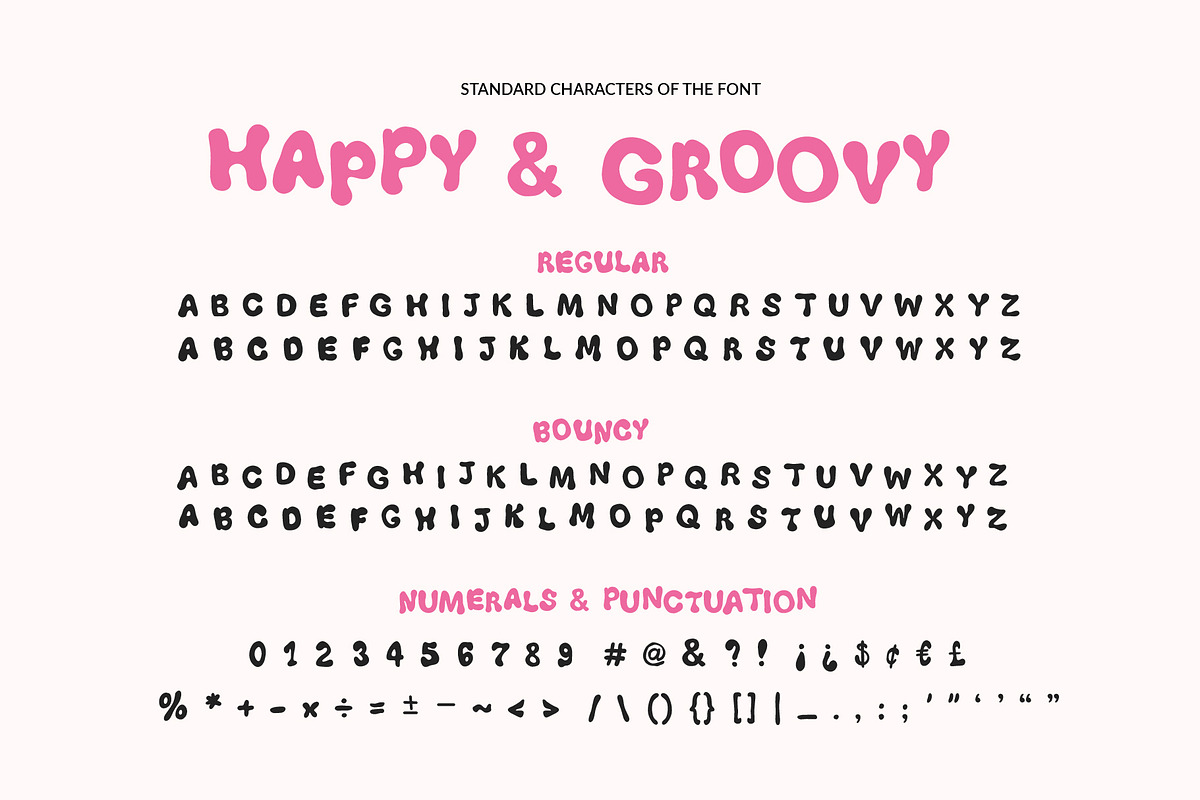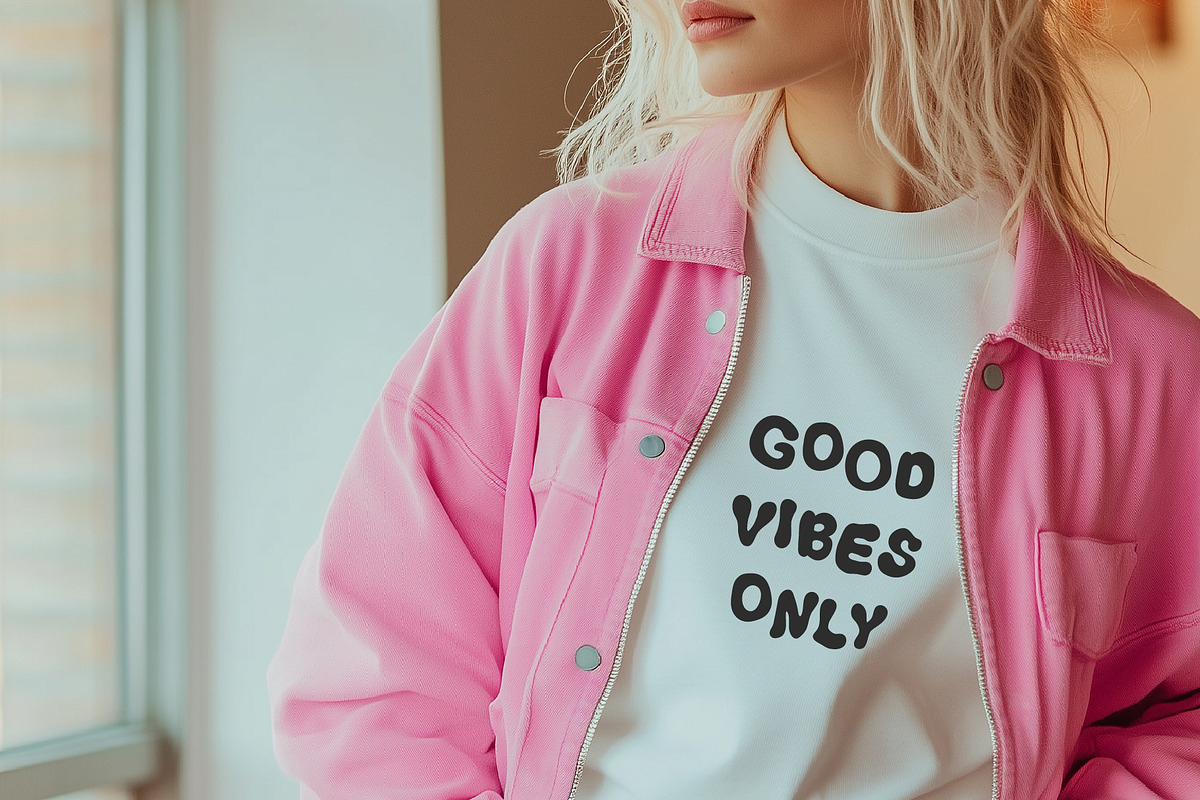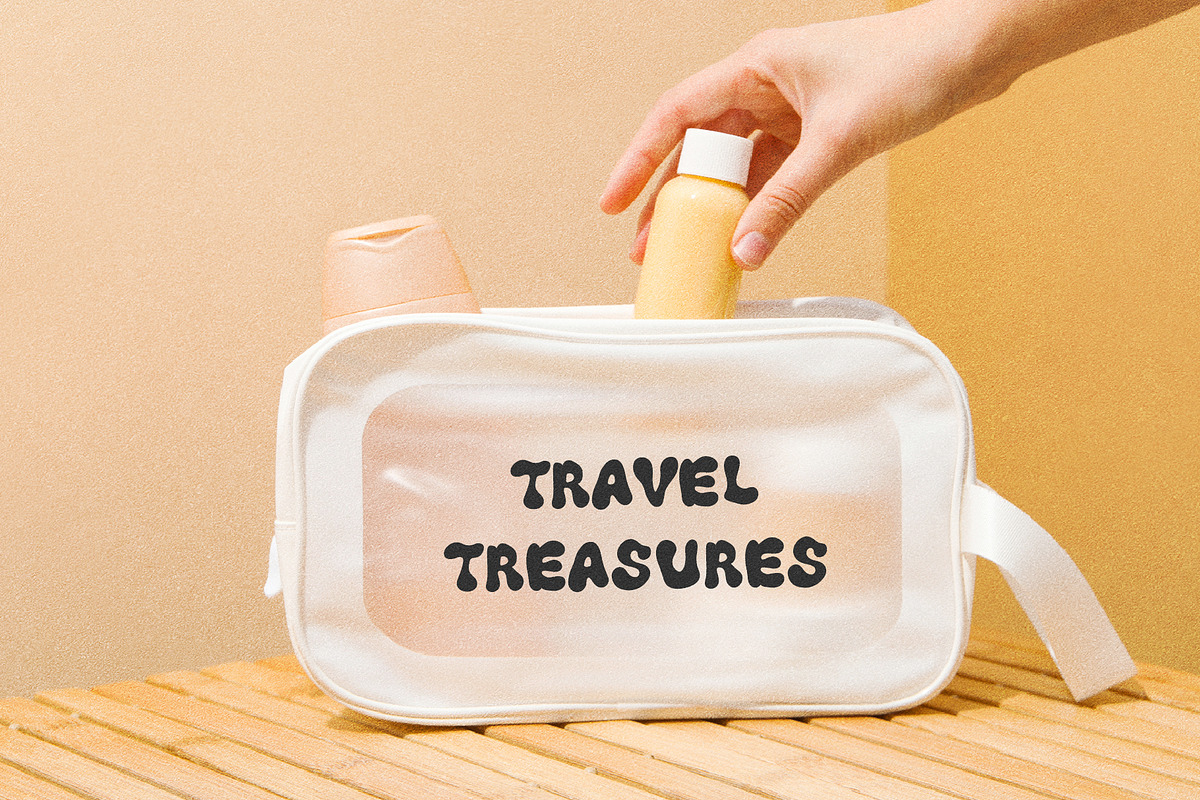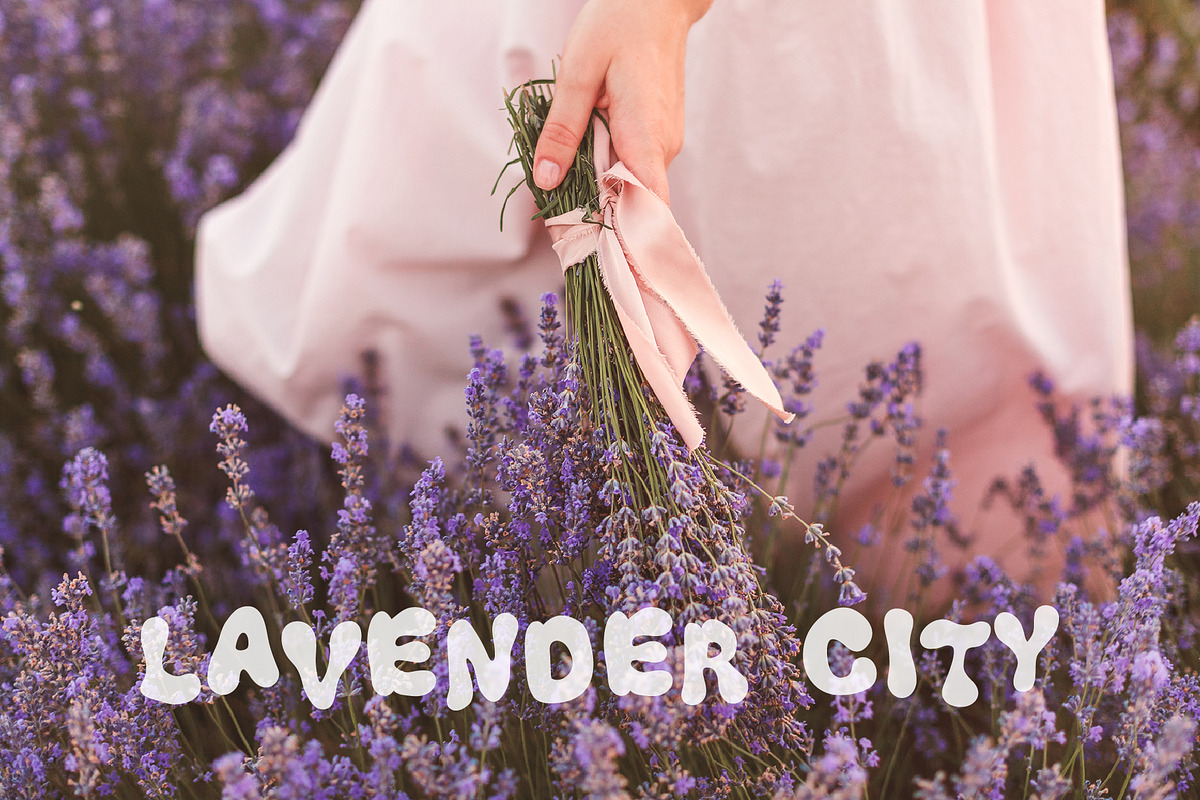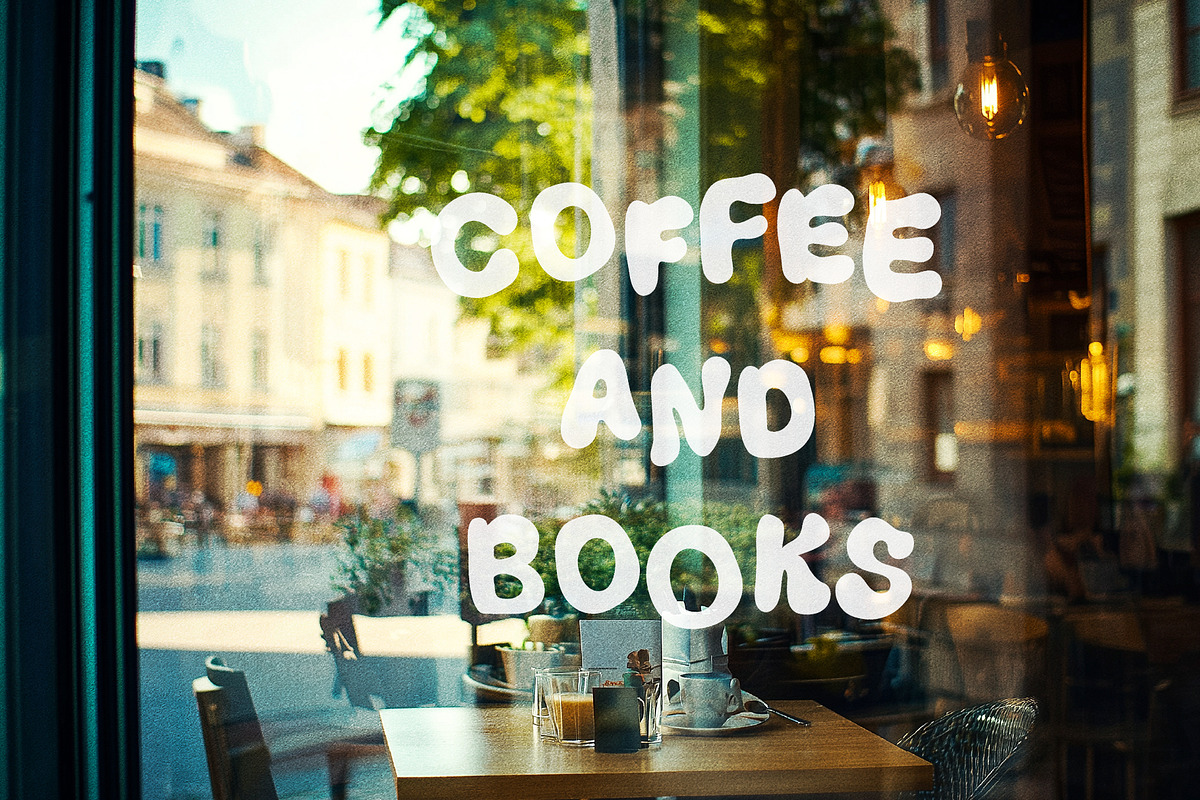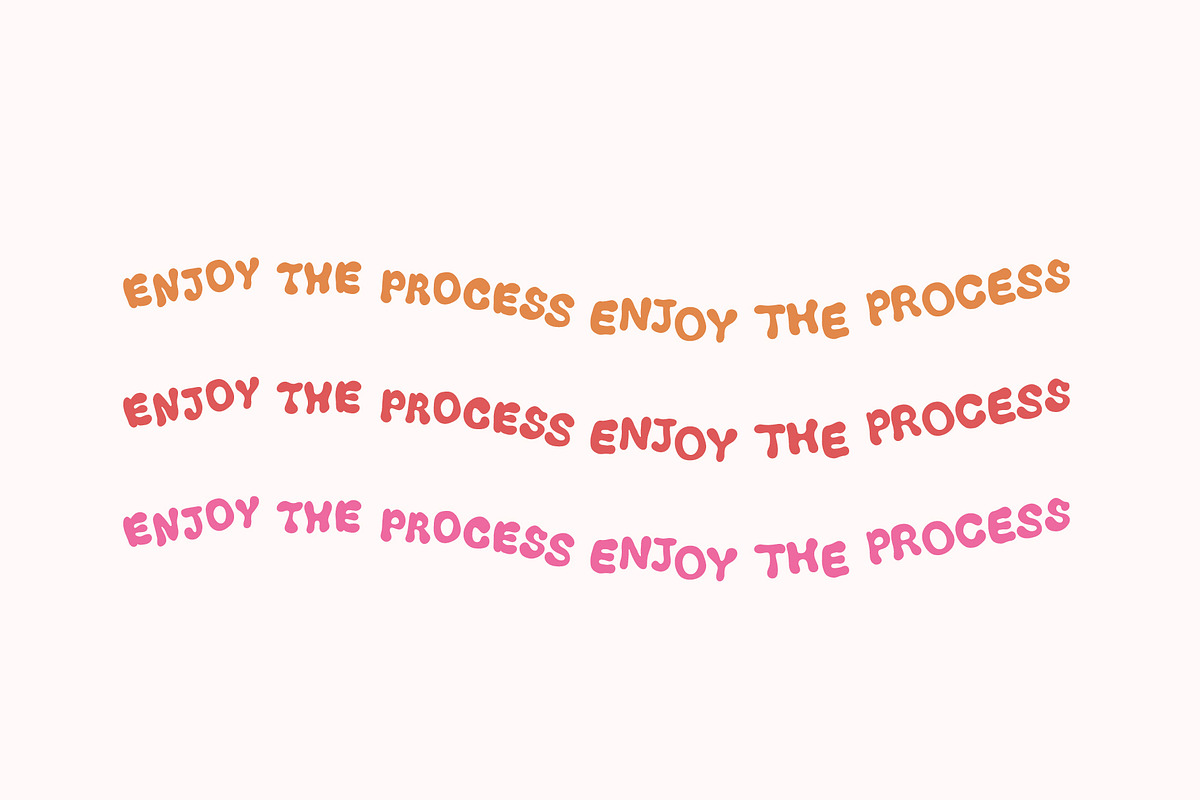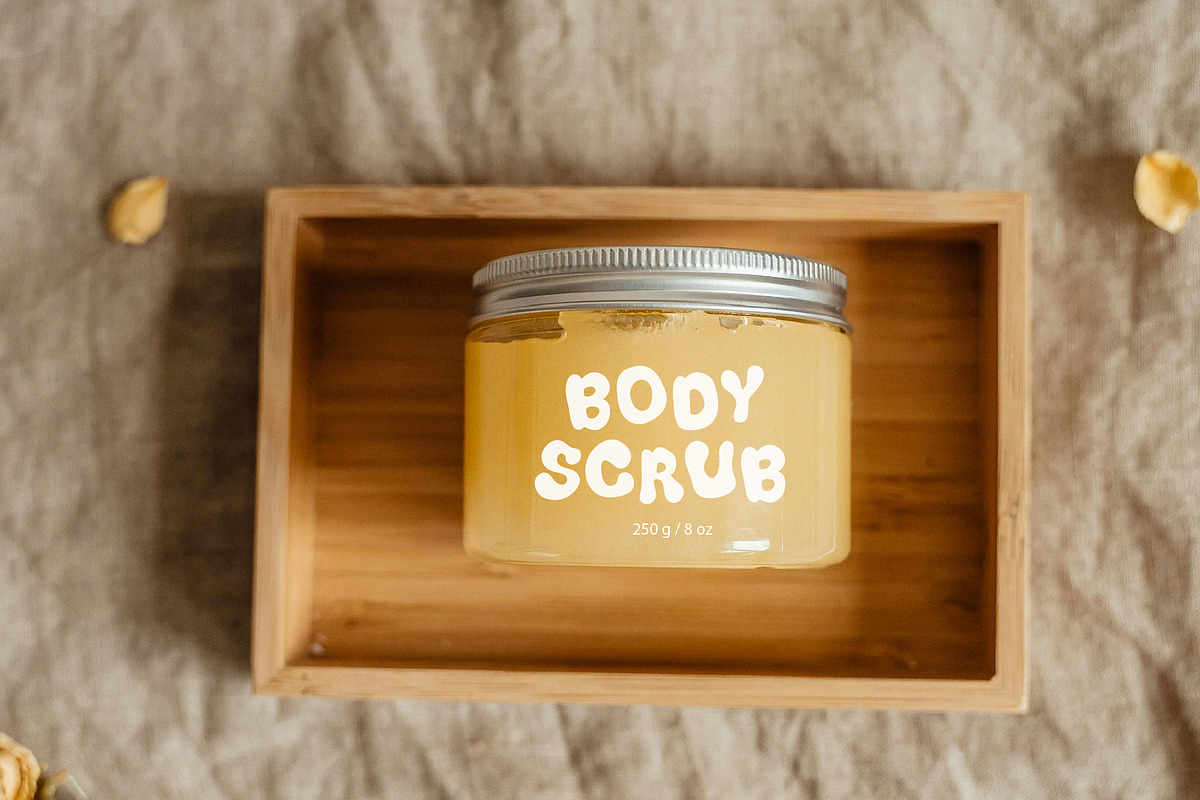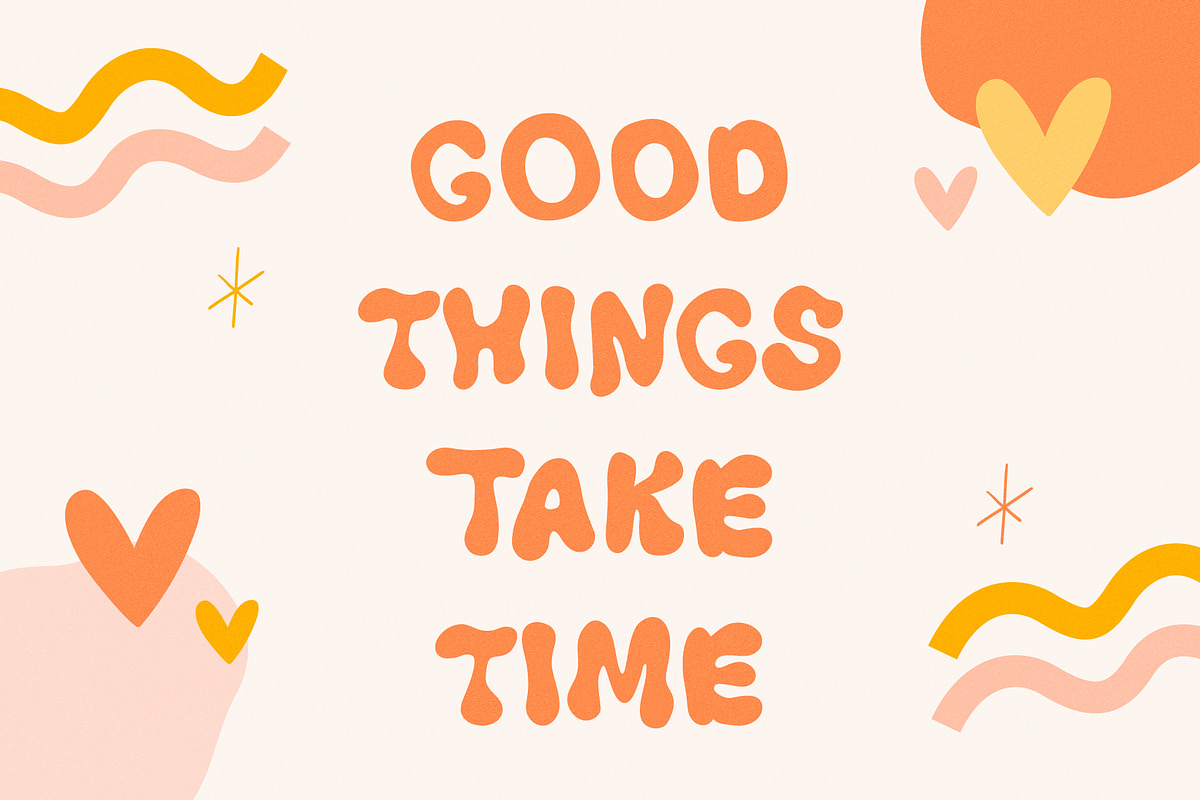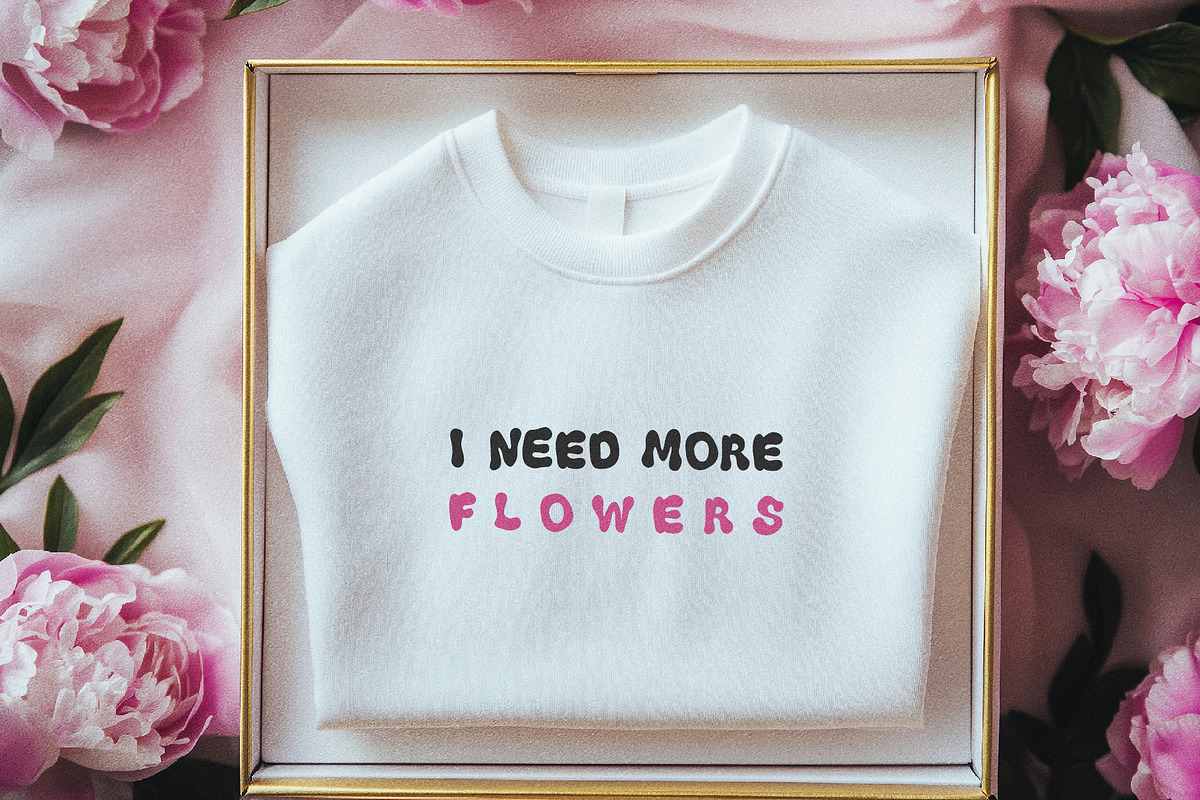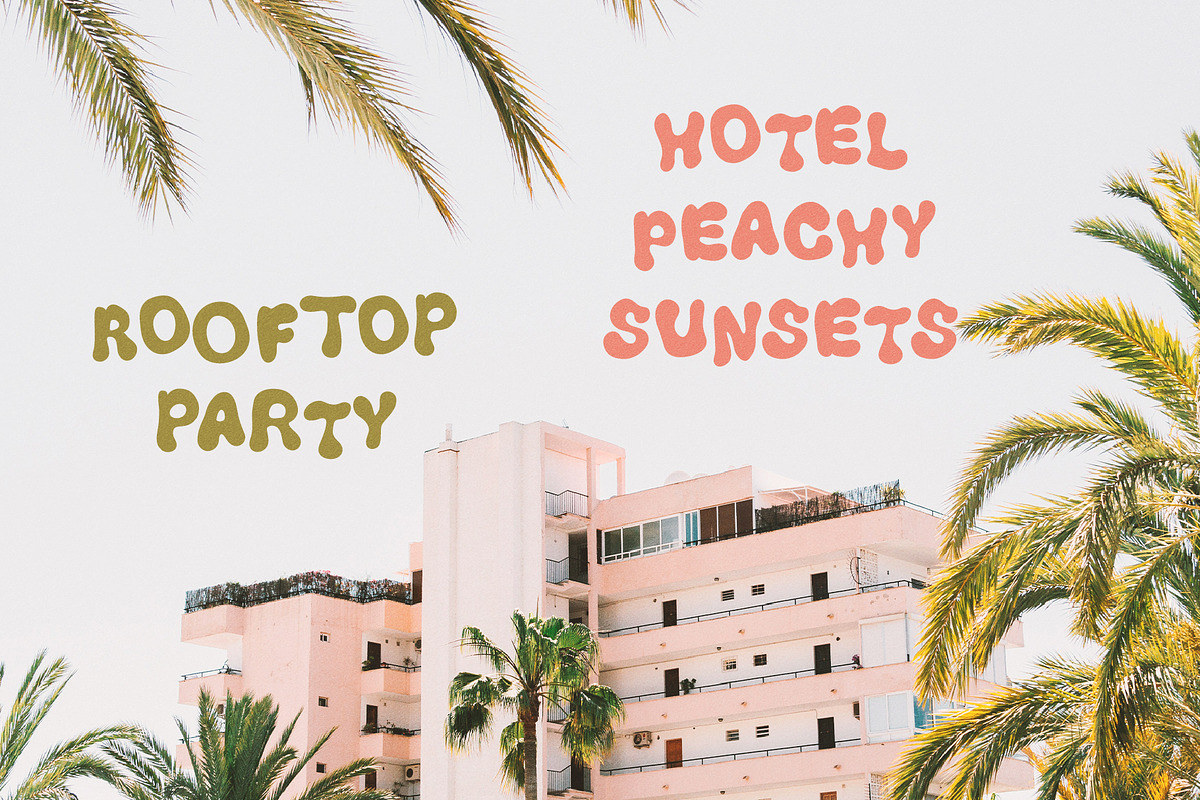
Happy and Groovy - Bouncy Retro Font
Introducing Happy and Groovy– a vibrant, retro-inspired font that dances off the page with its playful curves and bold lines. Each letter is infused with a sense of rhythm, capturing the essence of the '70s and '80s with a modern twist. Perfect for posters, craft projects, greeting cards, social media, printed goods or any project that needs a splash of nostalgia and fun.
• All caps characters
• Numbers, punctuation, symbols
• Supported Languages: Currently English only